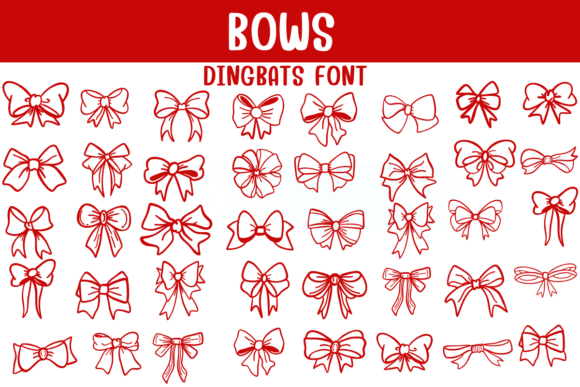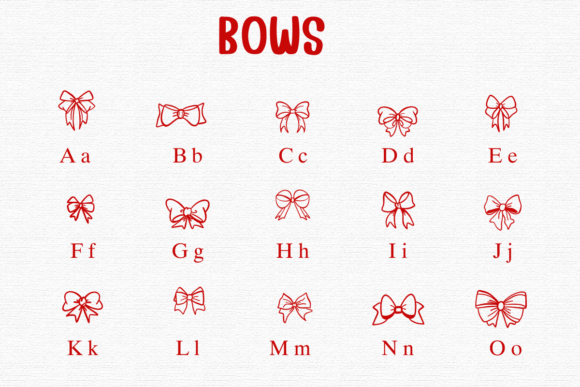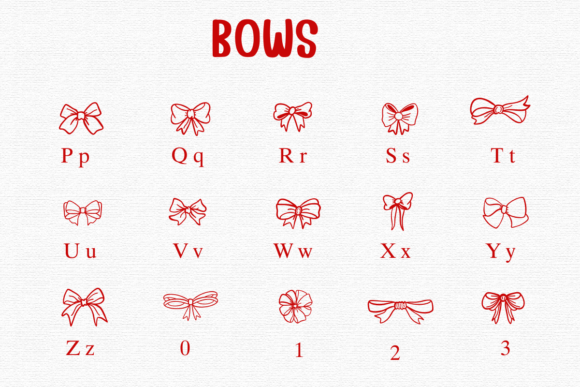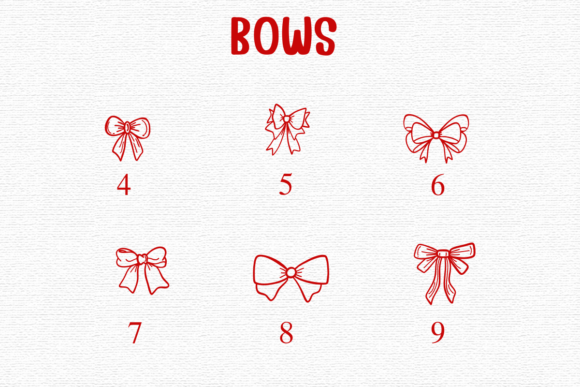
Bows Font
About the Bows Font
Explore the possibilities with Bows Font, a font that offers both beauty and functionality. Bows is a charming dingbats font featuring a wide range of elegant, playful, and stylish bow illustrations. Ideal for gift tags, invitations, planners, and fashion-themed designs, these hand-drawn bows add instant cuteness and flair to any creative project—just type and decorate!
Bows’ playful charm makes it perfect for projects needing a touch of whimsy, such as children’s books, greeting cards, or branding for businesses focused on gifts, fashion, or beauty. It excels in headlines, short phrases, and decorative elements, adding visual interest without overwhelming the design. However, its decorative nature makes it unsuitable for body text or UI elements requiring high readability.
Pairing Bows with a clean sans-serif like Open Sans for body text creates a balanced and visually appealing contrast. For a more sophisticated look, consider pairing it with a classic serif font such as Garamond or a slightly more modern serif like Lora. These pairings allow Bows to shine as an accent without disrupting the overall readability of the project.
The font’s core personality is undeniably cheerful and elegant, making it ideal for brands projecting a friendly, approachable, and stylish image. Avoid using it in contexts demanding seriousness or professionalism.